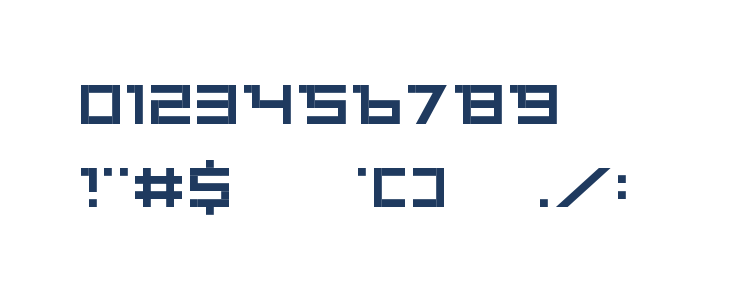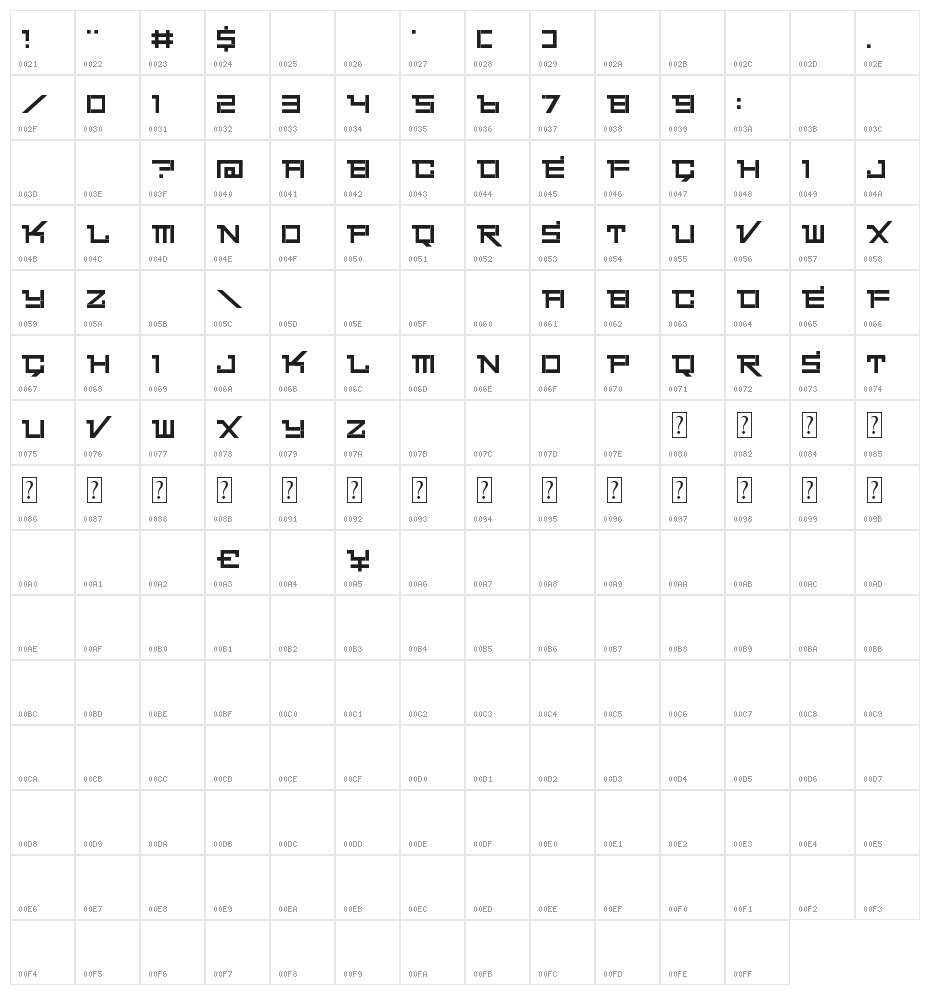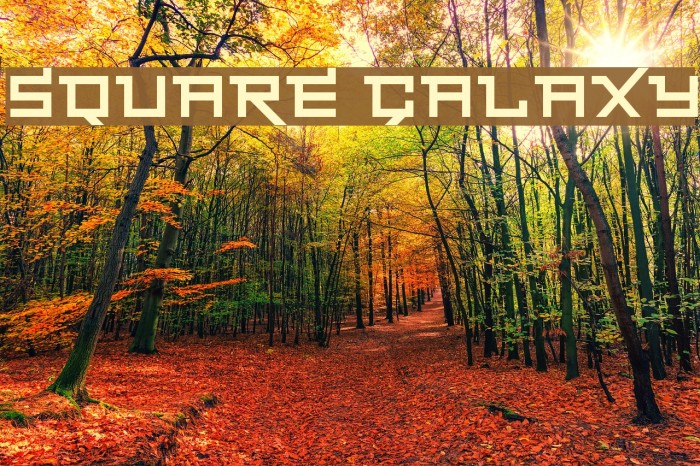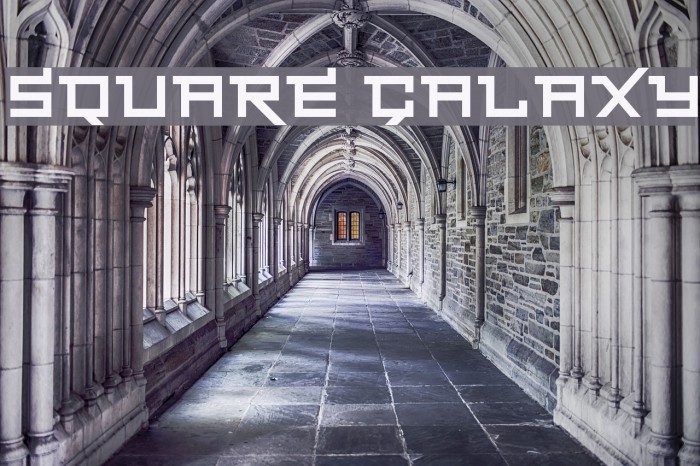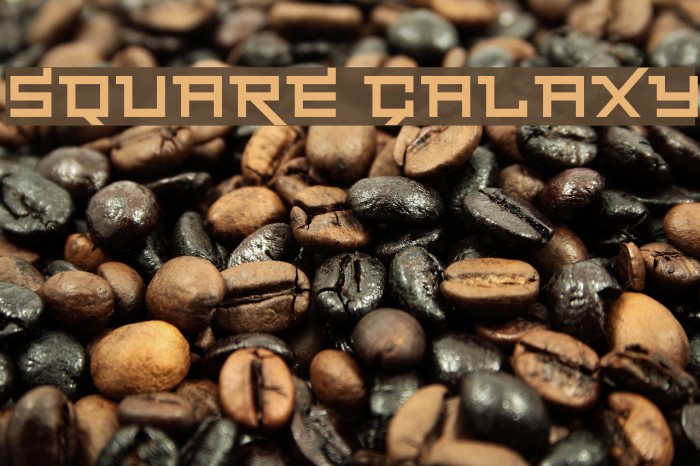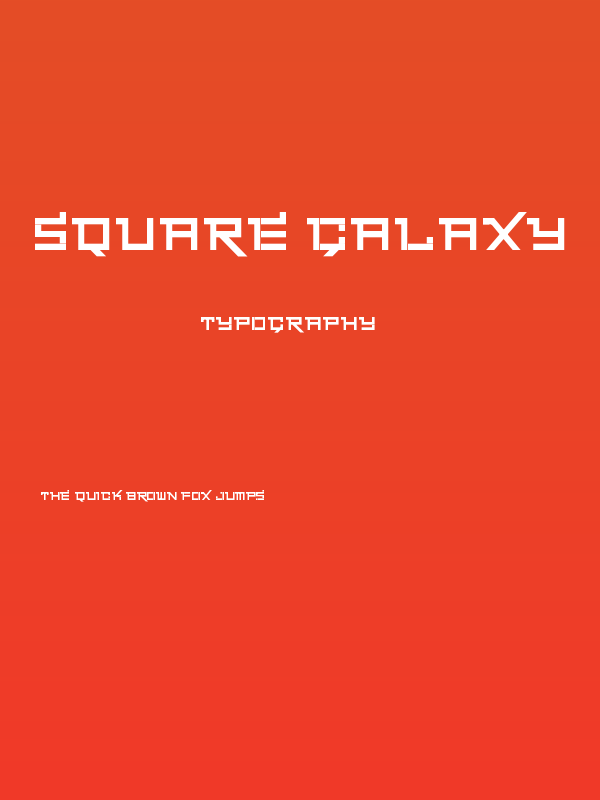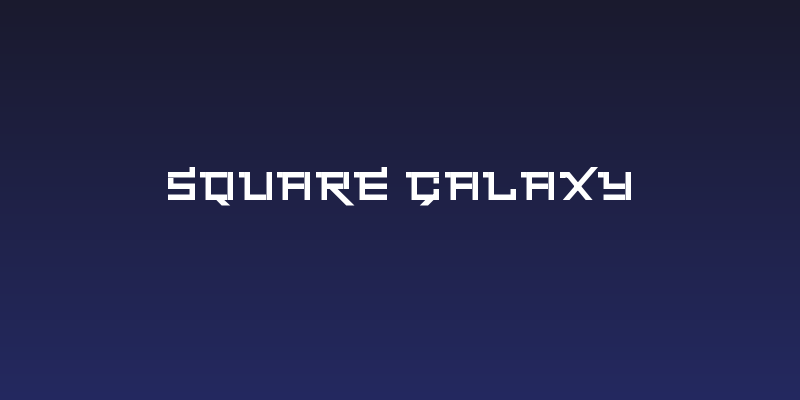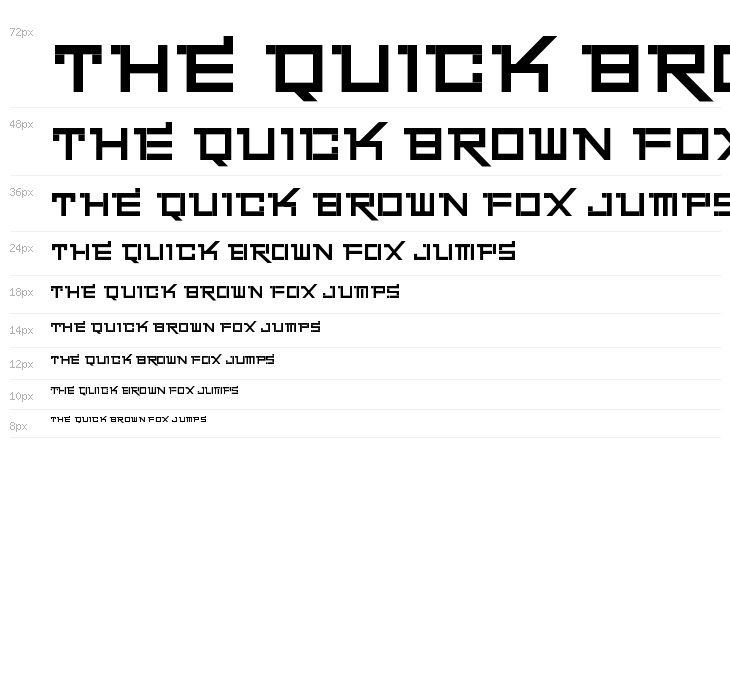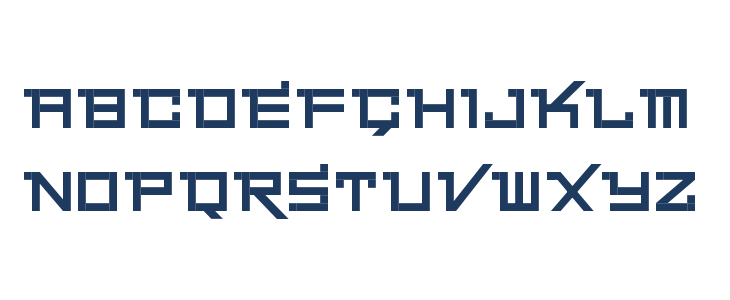
Square Galaxy Font
Square Galaxy Description
This font features a futuristic and geometric design, characterized by sharp angles and a blocky structure. The uppercase and lowercase letters maintain a consistent height, giving a uniform appearance. The numerals and special characters follow the same angular style, enhancing the overall cohesive look. The font's design is reminiscent of digital or sci-fi themes, making it ideal for projects that require a modern and technological aesthetic. The characters are evenly spaced, providing a balanced and readable text layout.
| Proposed Projects | Ideal for sci-fi themed designs, technology branding, video game interfaces, and digital media. |